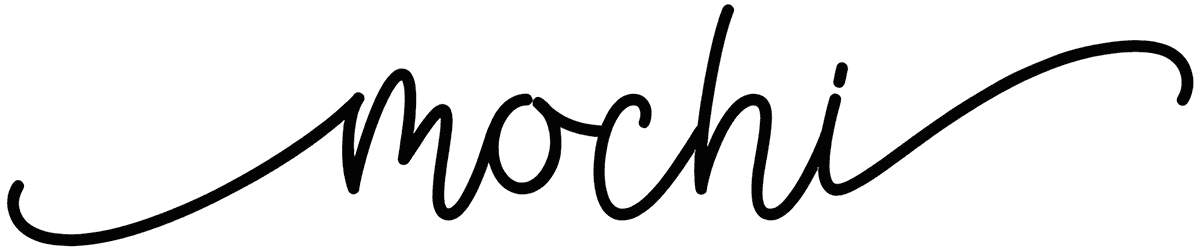
Millie Font
Express your love only in a cute way with Millie, a whimsical and charming handwritten font that appeals authentically to everyone. Birthday invitations, chocolate packages, greeting cards, book covers, and Valentine’s Day projects are some instances where you can apply this love font. Just download it and spread joy all over your design in no time.
Designed by: Fillo Graphic